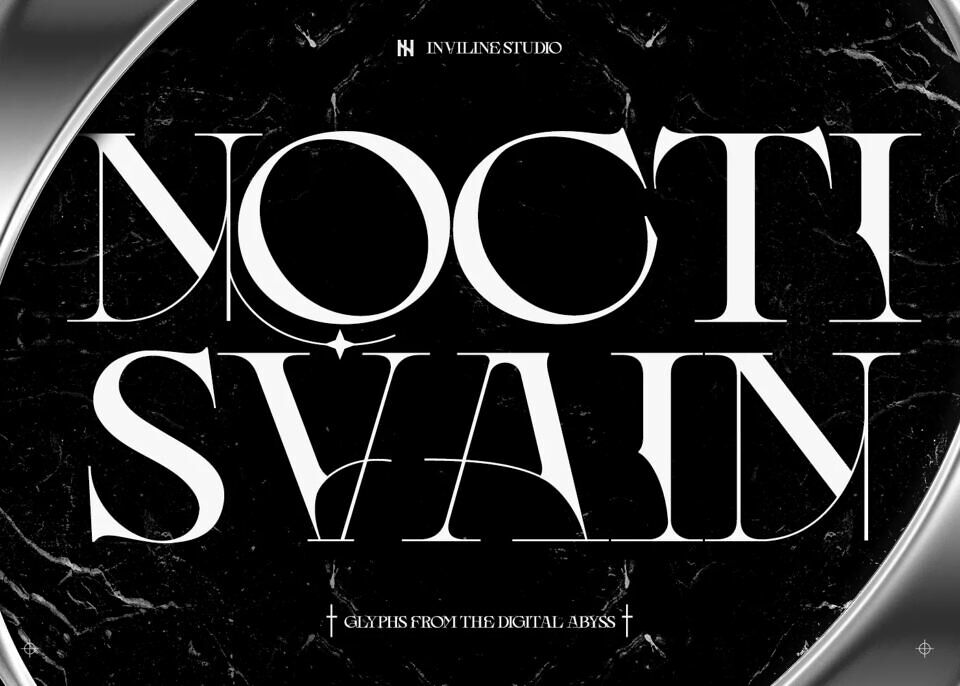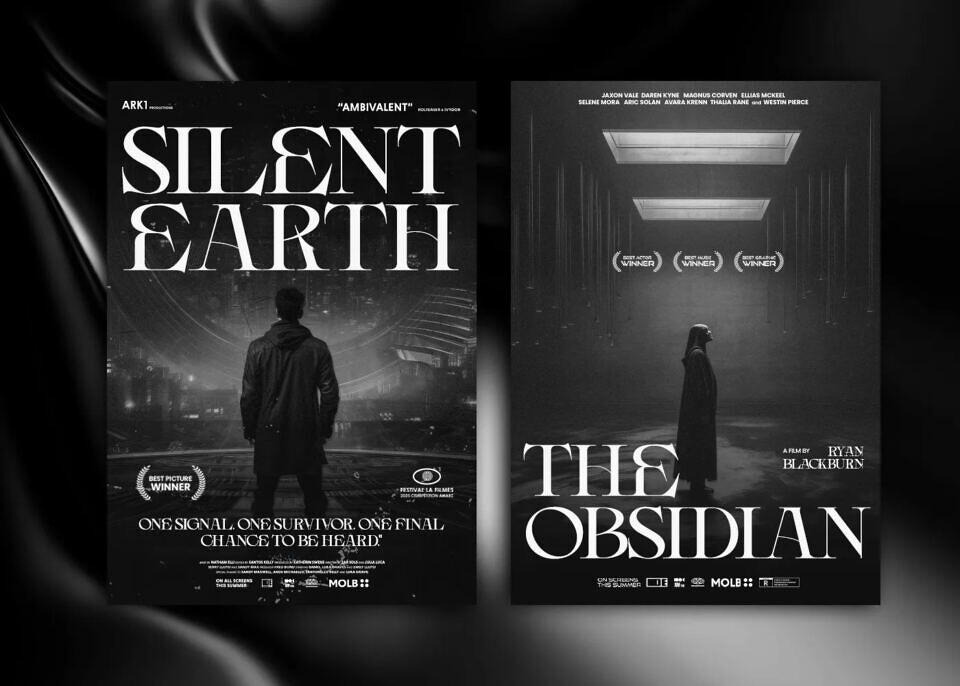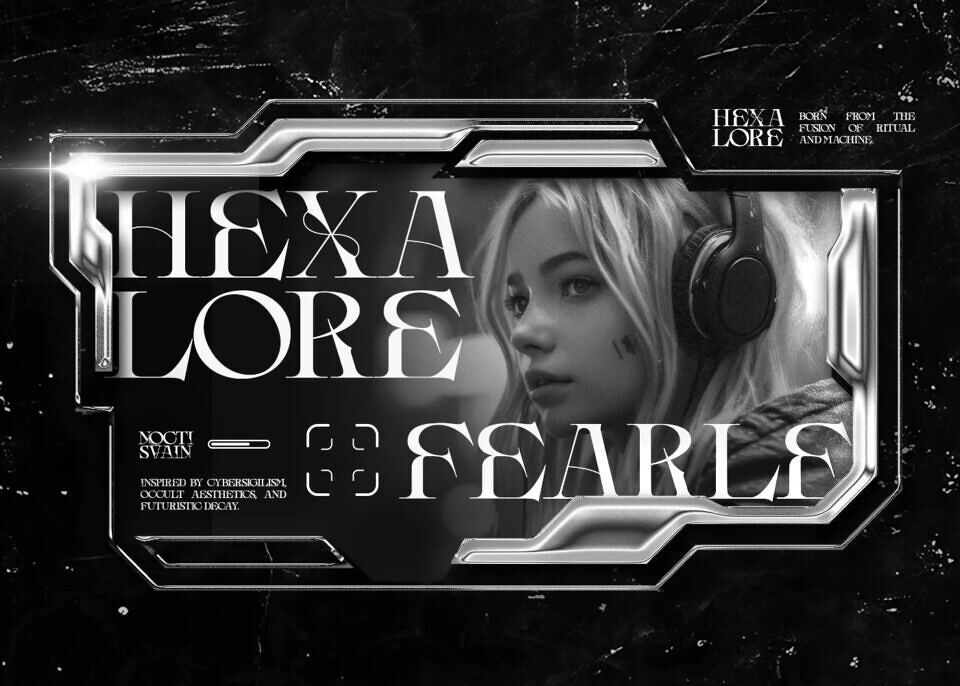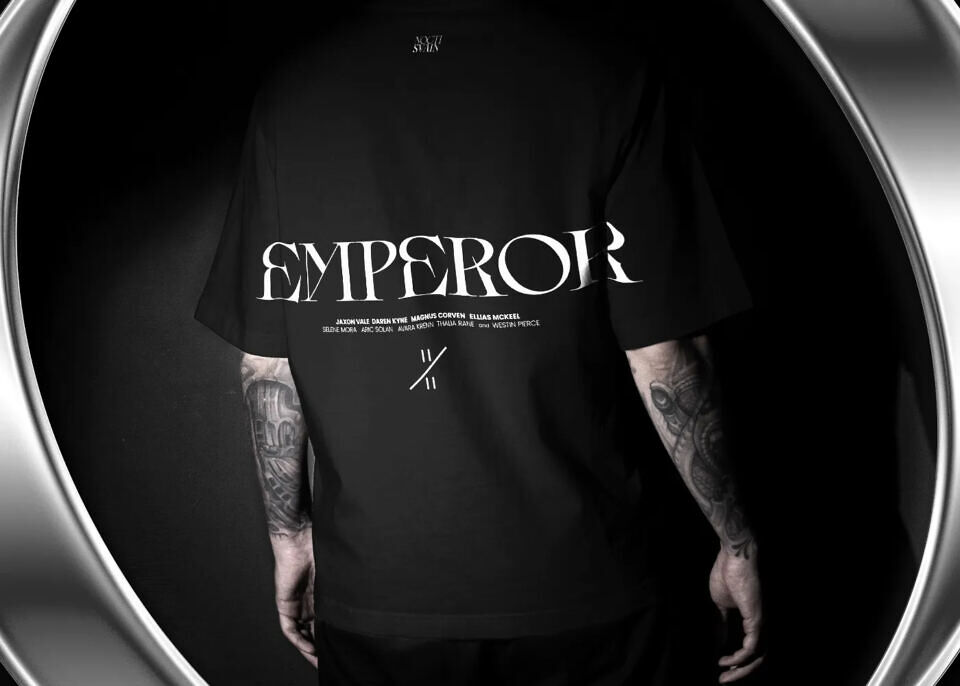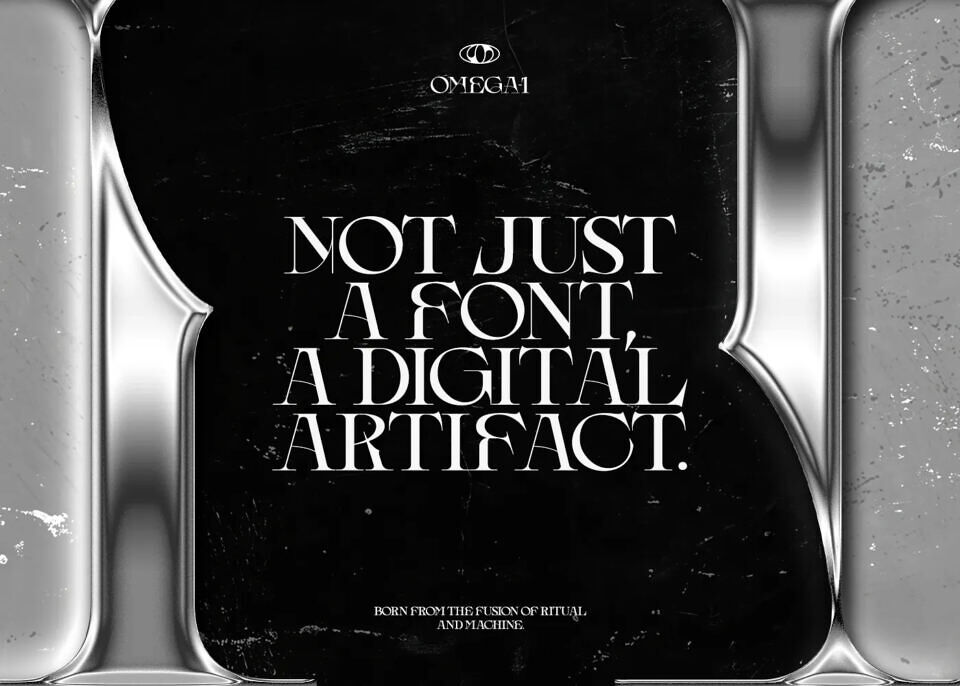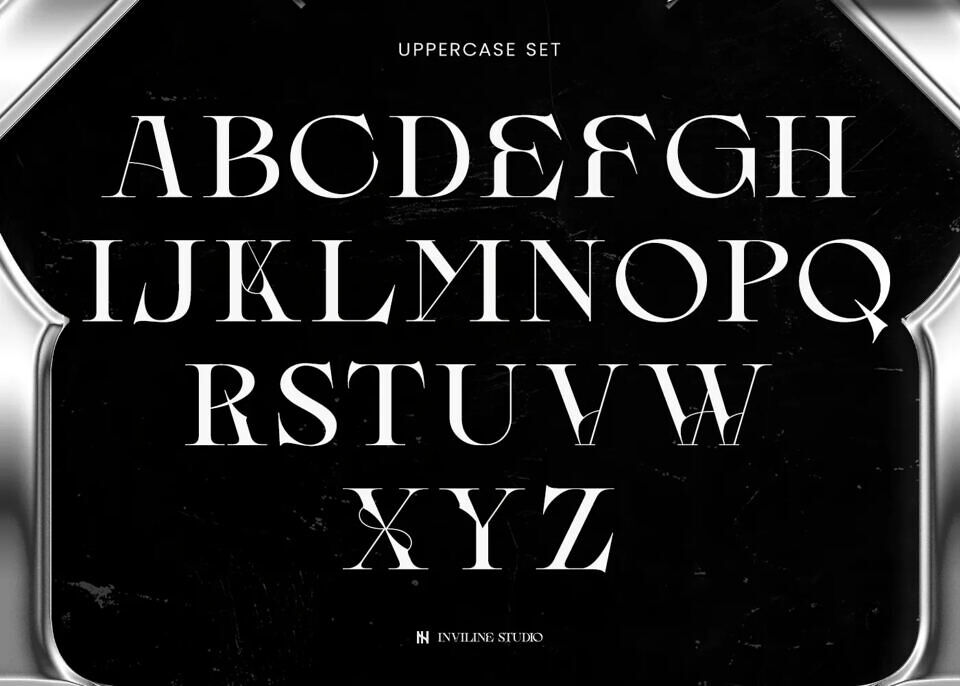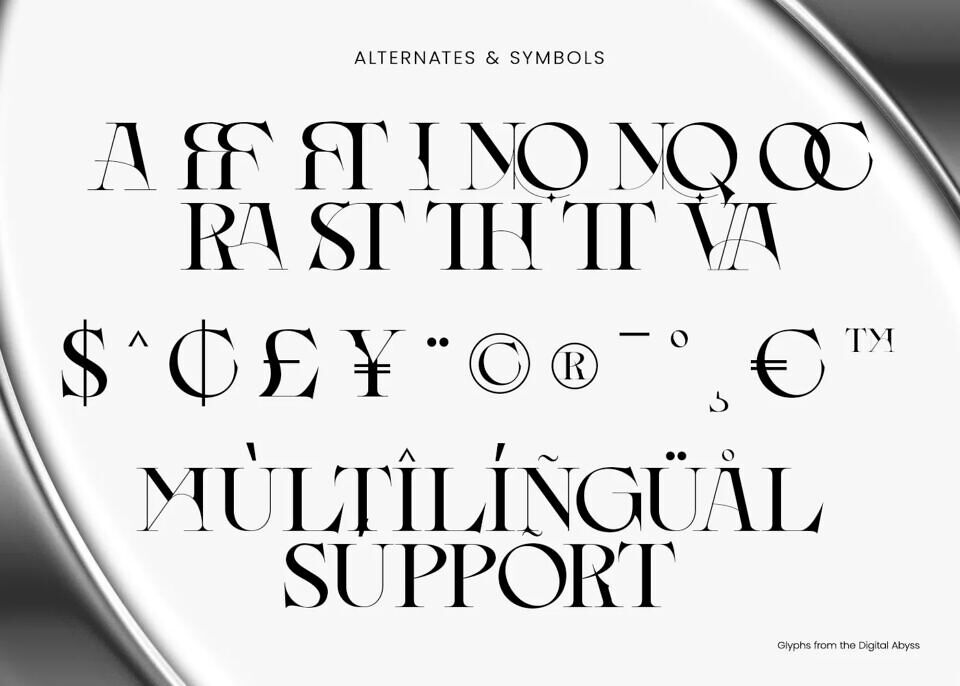
Noctisvain Font
Noctisvain is a gothic-inspired display typeface that blends sharp elegance with modern refinement. Featuring dramatic contrast, elongated serifs, and a hauntingly sophisticated aesthetic, this font is perfect for high-impact titles, luxury branding, fashion editorials, music covers, posters, and dark-themed designs.
With its bold presence and unique glyph shapes, Noctisvain captures the essence of gothic grandeur while remaining versatile for both print and digital use.